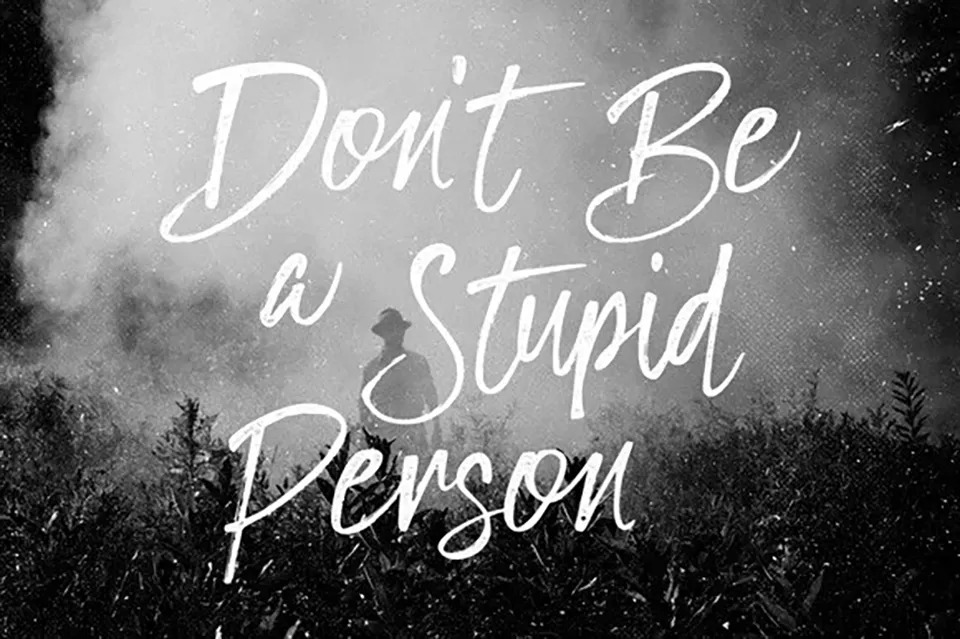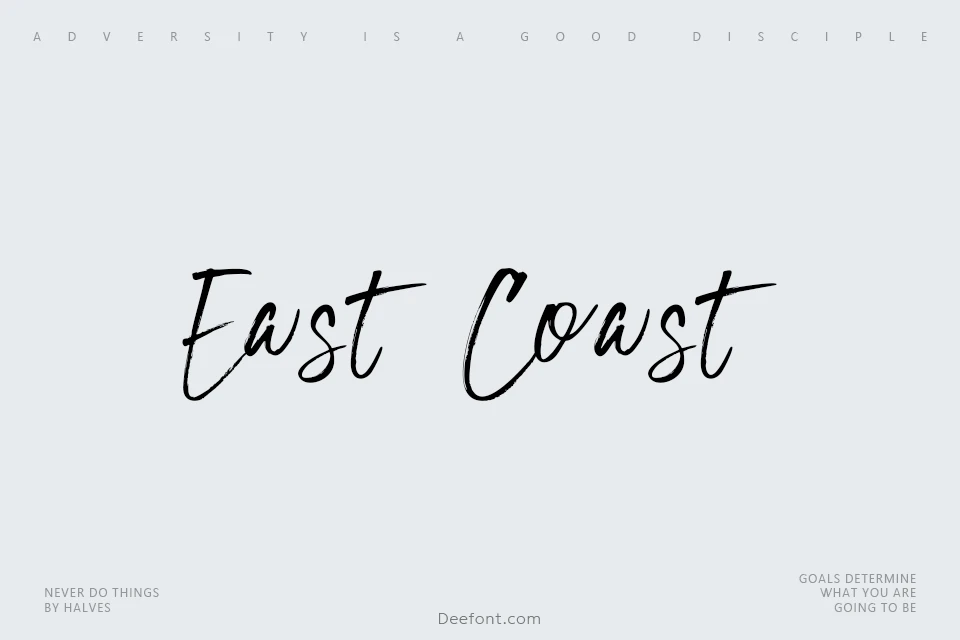
East Coast Script Font
The East Coast Script Font is a beautifully crafted script typeface designed by amtypefoundry. It features a handwritten style combined with brush strokes, making it perfect for creative projects that require a personal and artistic touch. The font’s elegant curves and fluid lines bring a sense of charm and sophistication to any design, from invitations to branding materials.